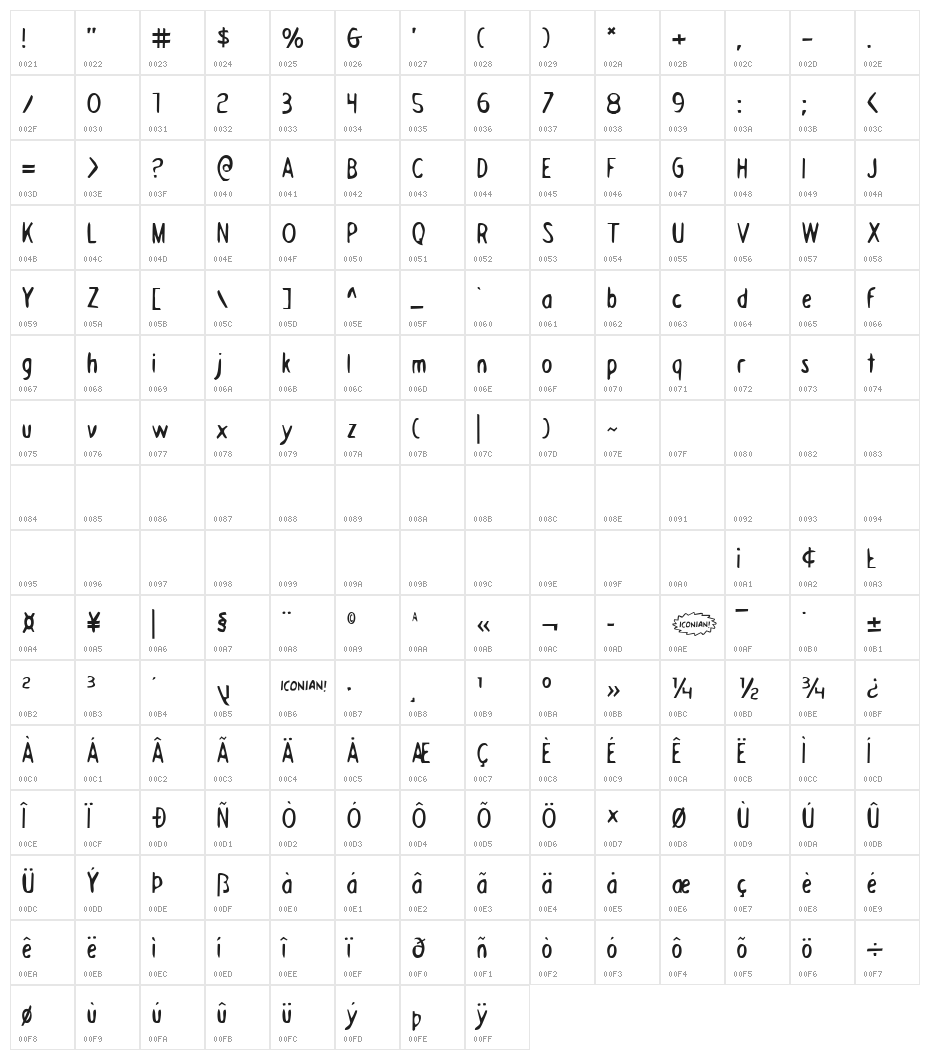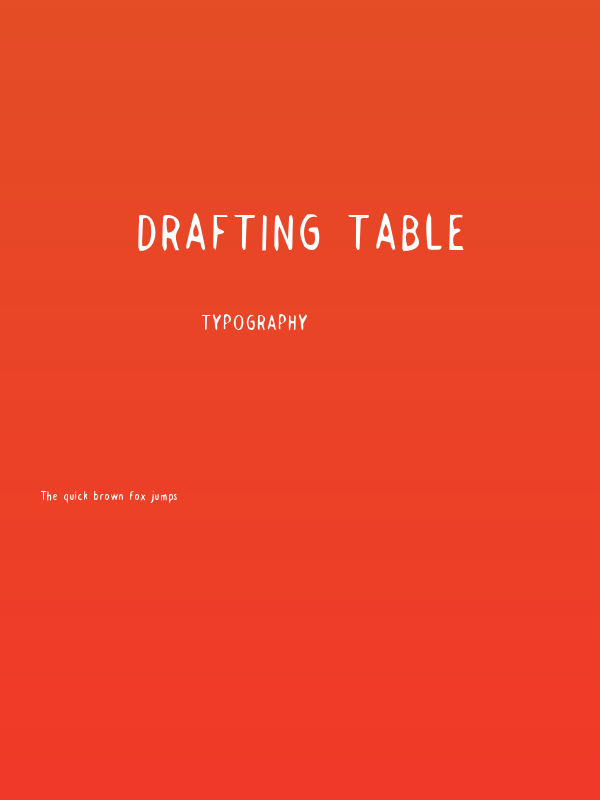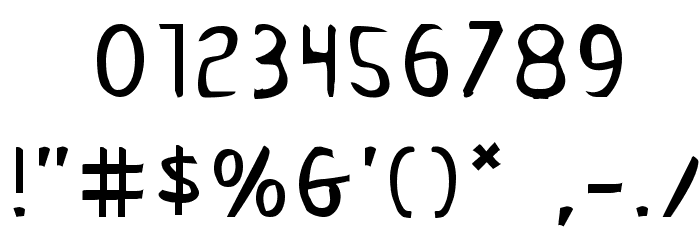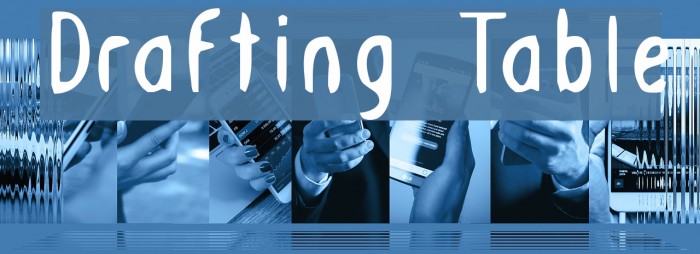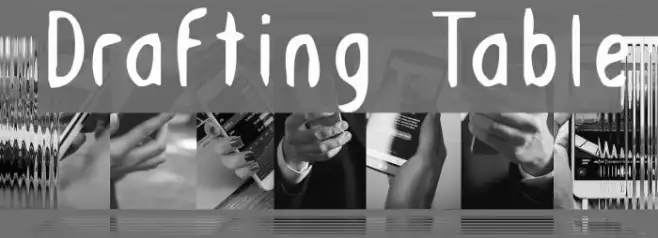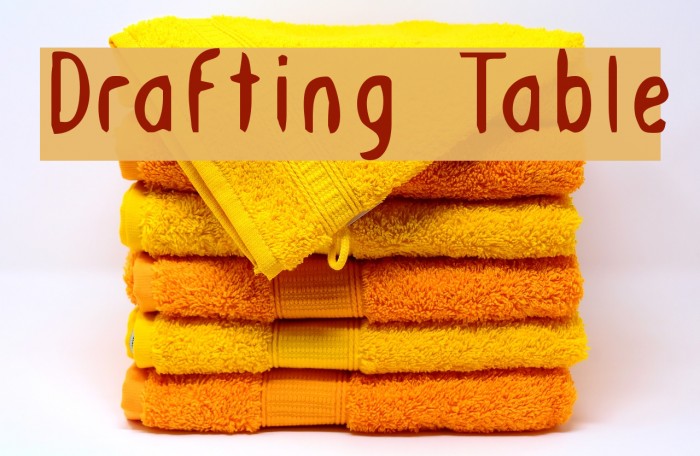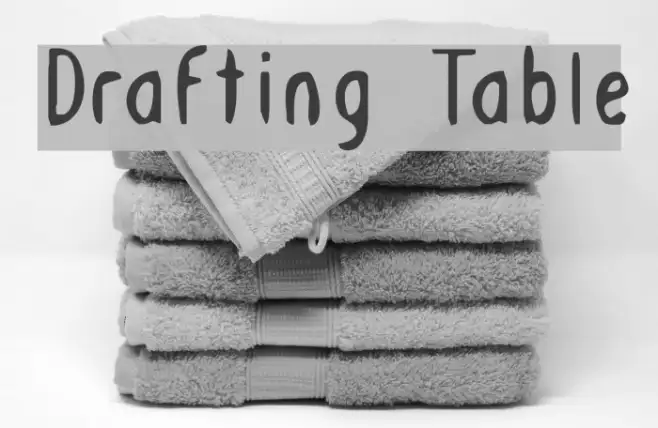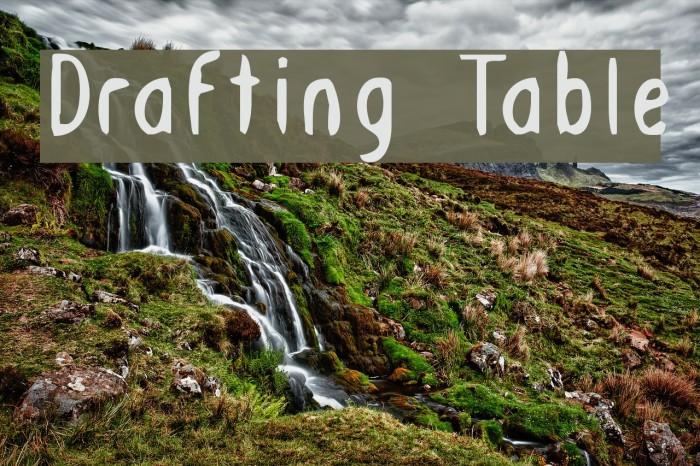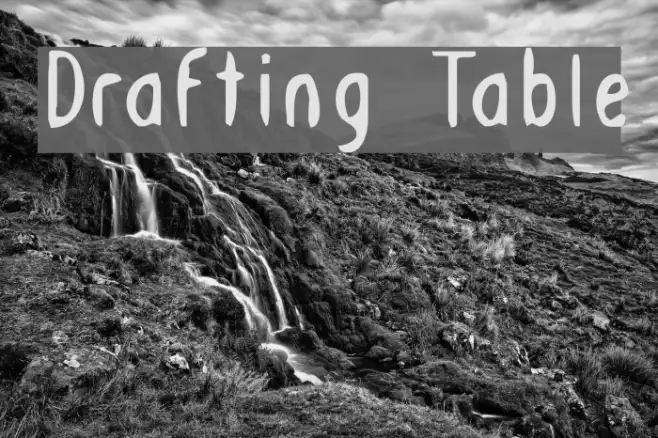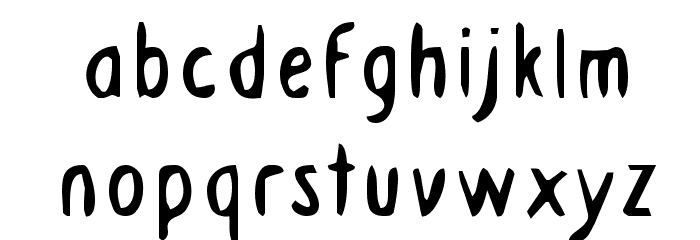
Drafting Table Font
Drafting Table Description
This font features a playful and slightly irregular style, reminiscent of hand-drawn lettering. The characters have a whimsical, artistic flair with varying stroke widths that add a dynamic and lively feel. The uppercase letters are bold and prominent, while the lowercase letters maintain a consistent flow with subtle variations in height and width. The numbers and special characters follow the same playful aesthetic, making the font versatile for creative projects. Its unique style is suitable for designs that aim to convey a sense of fun and creativity.
| Proposed Projects | Ideal for children's books, greeting cards, playful branding, and creative posters. |